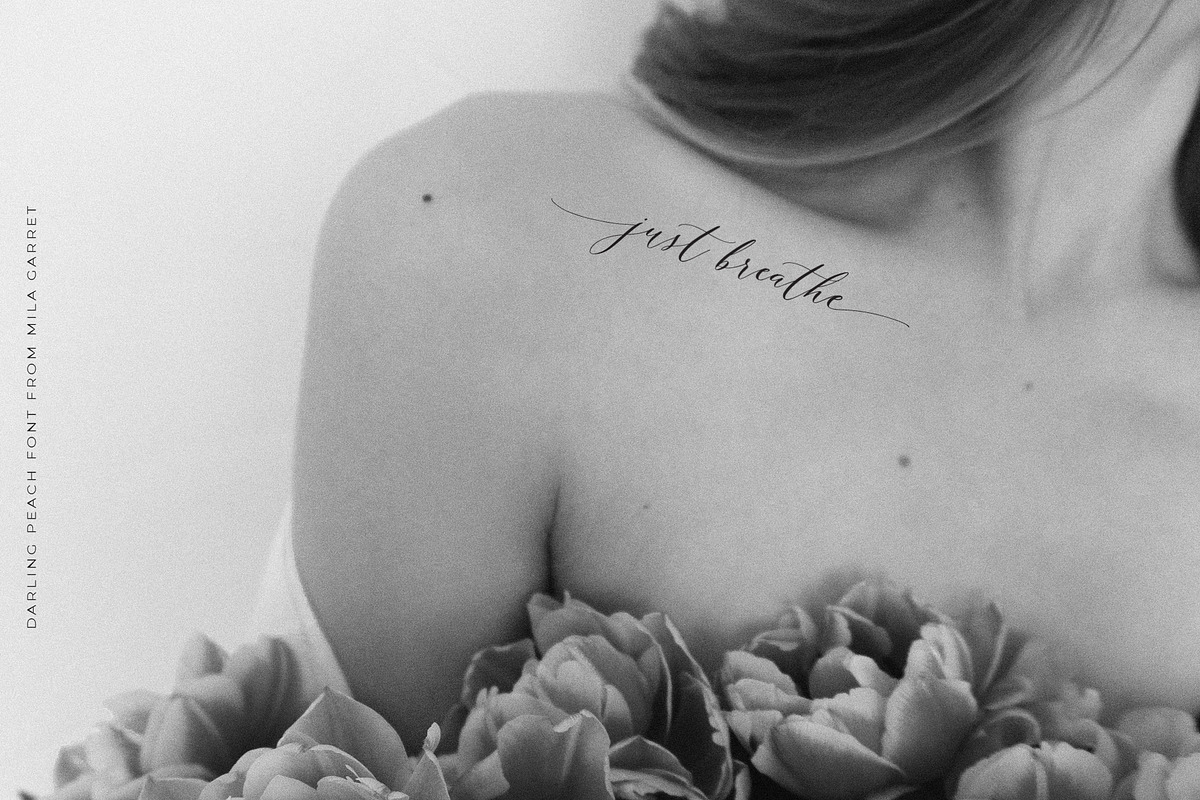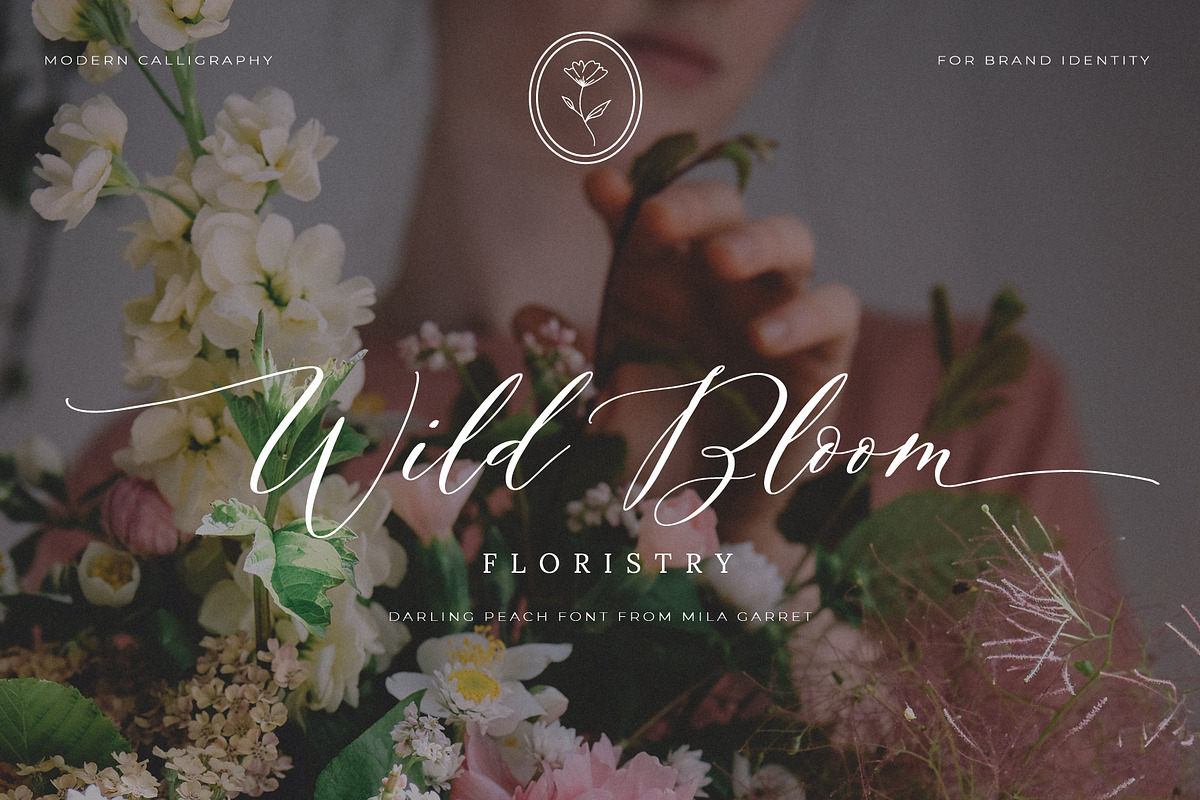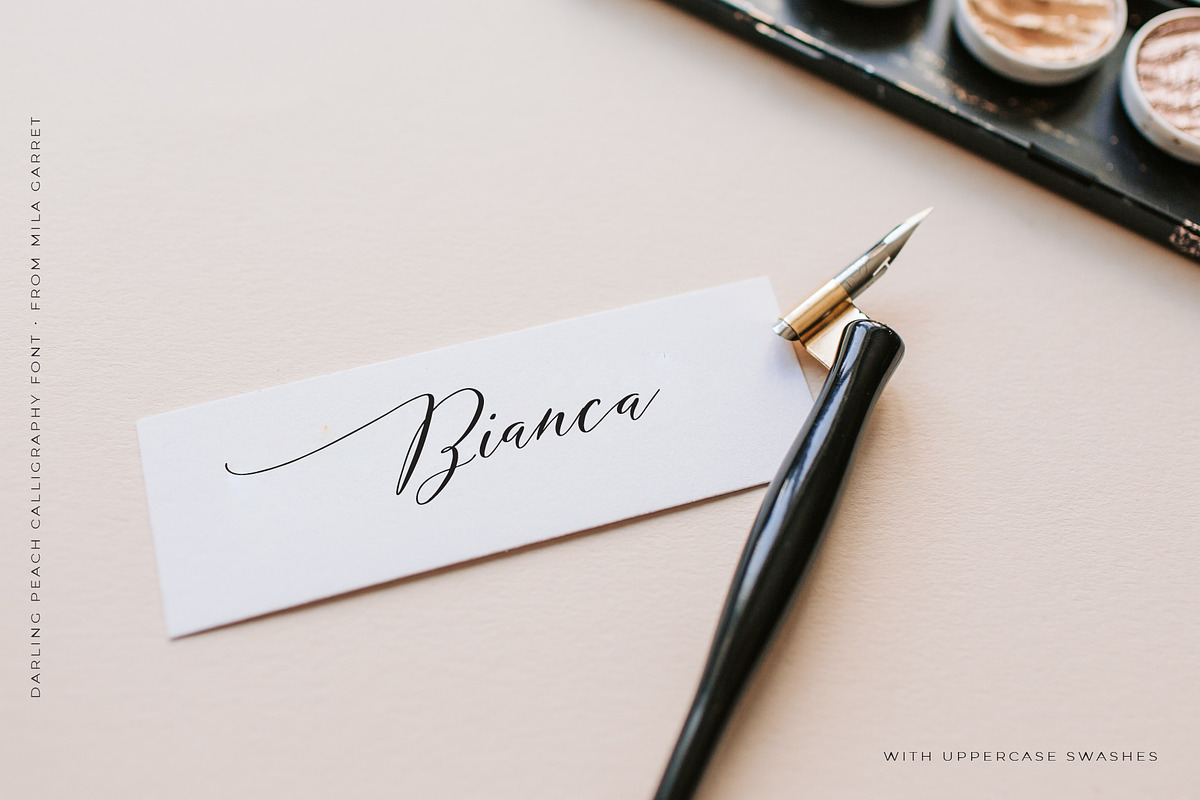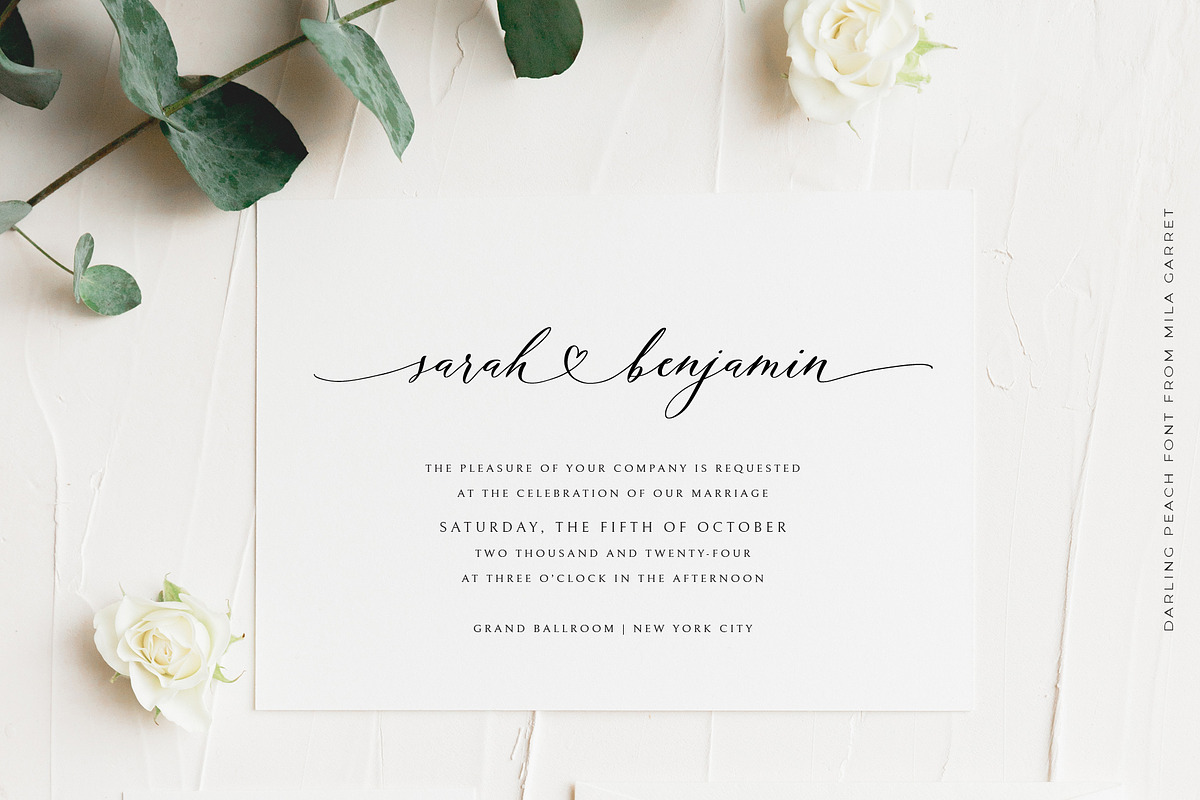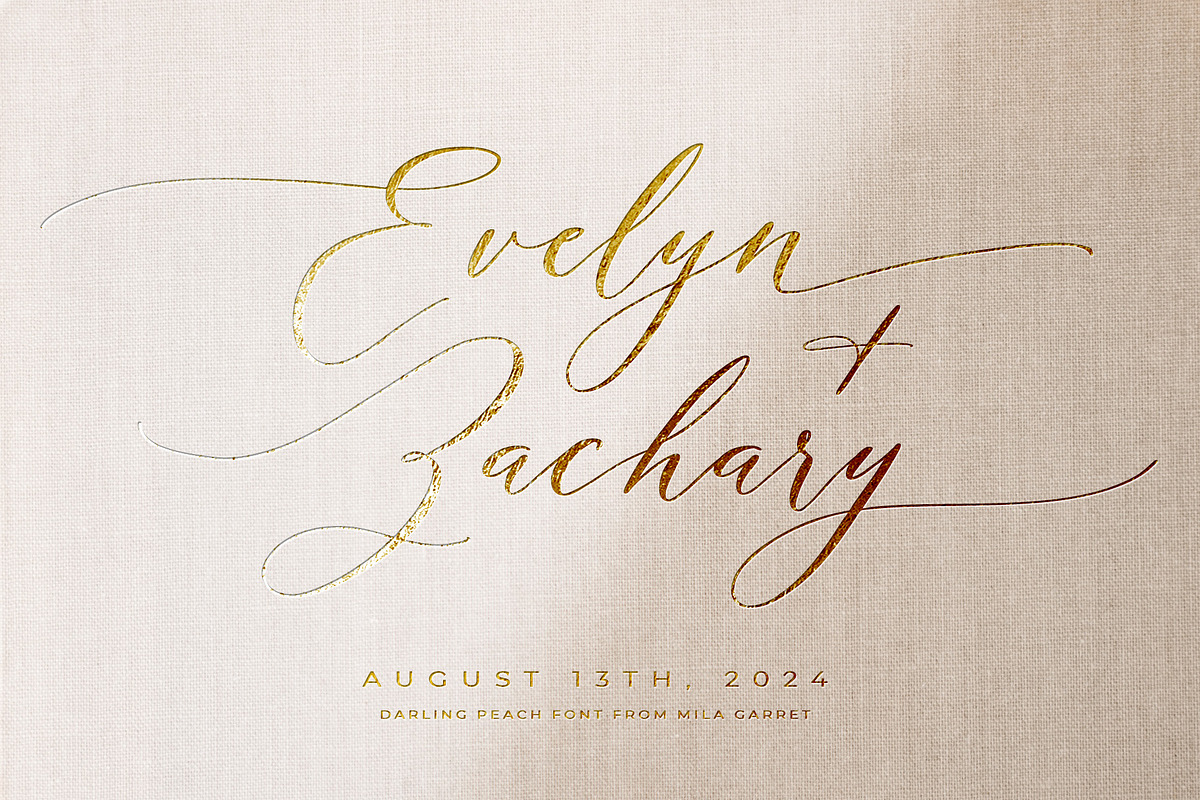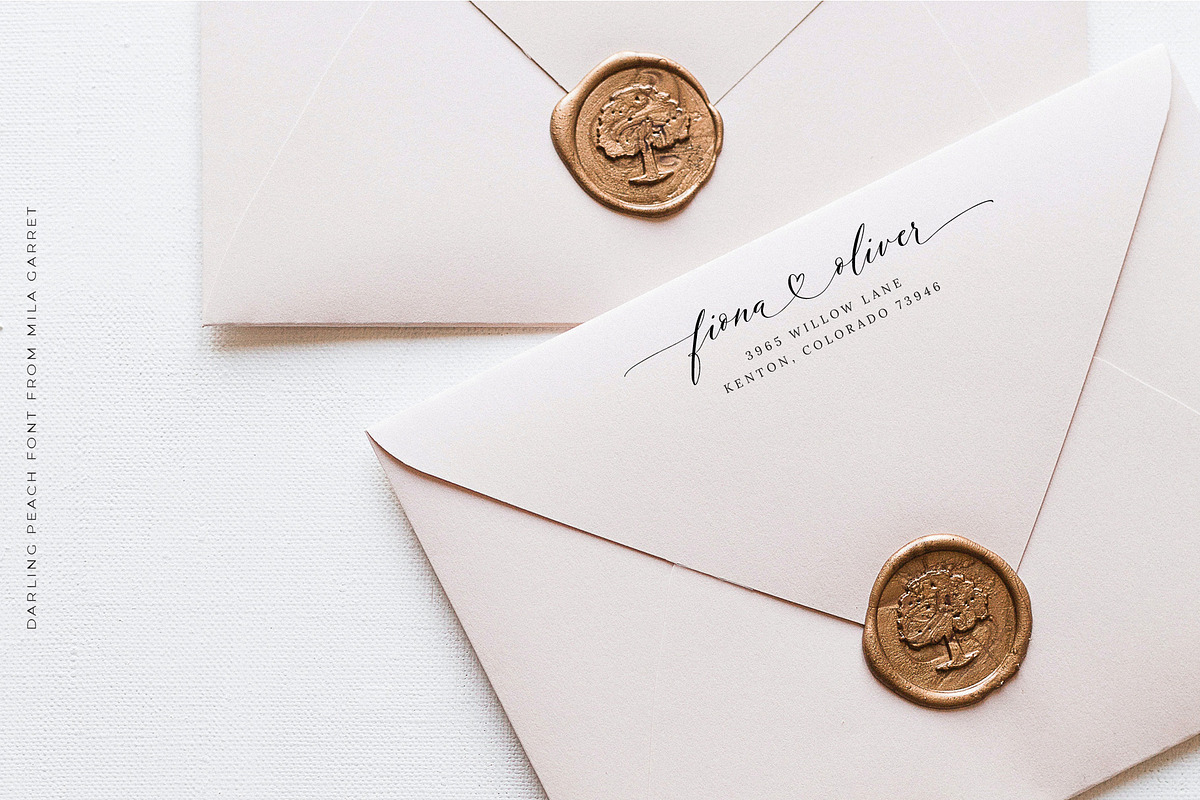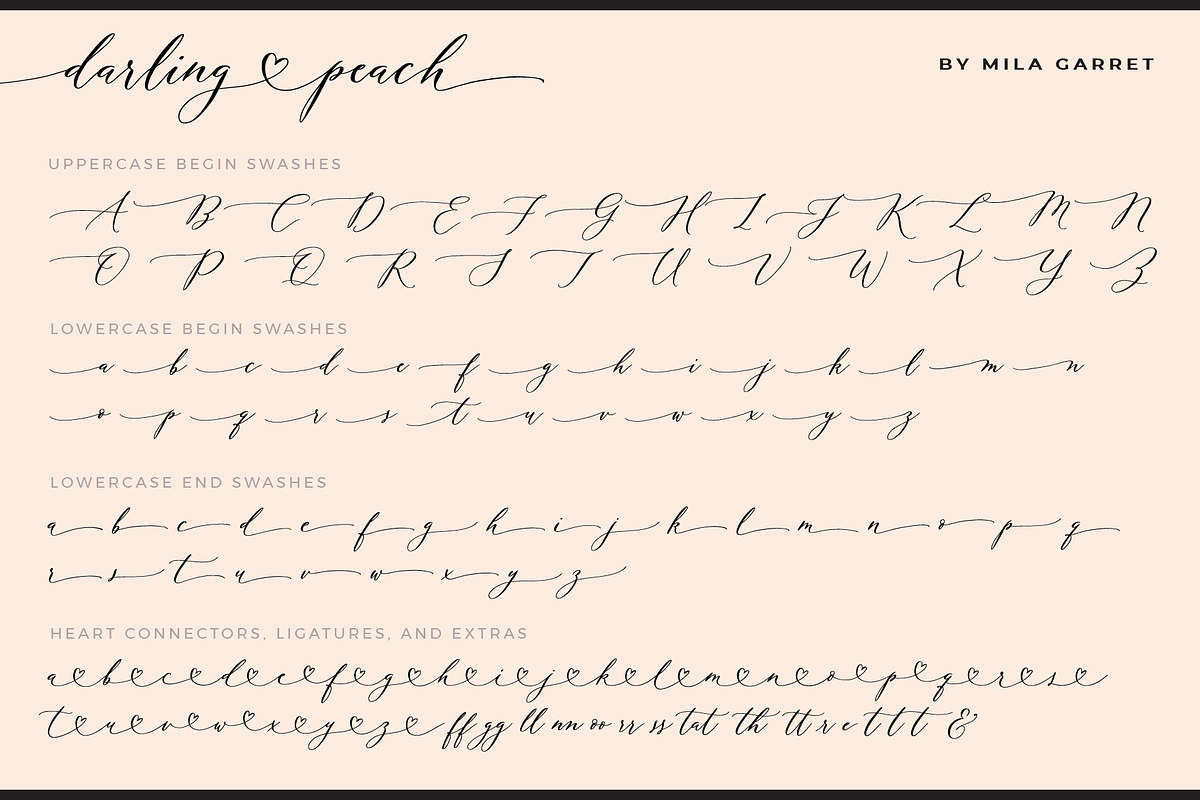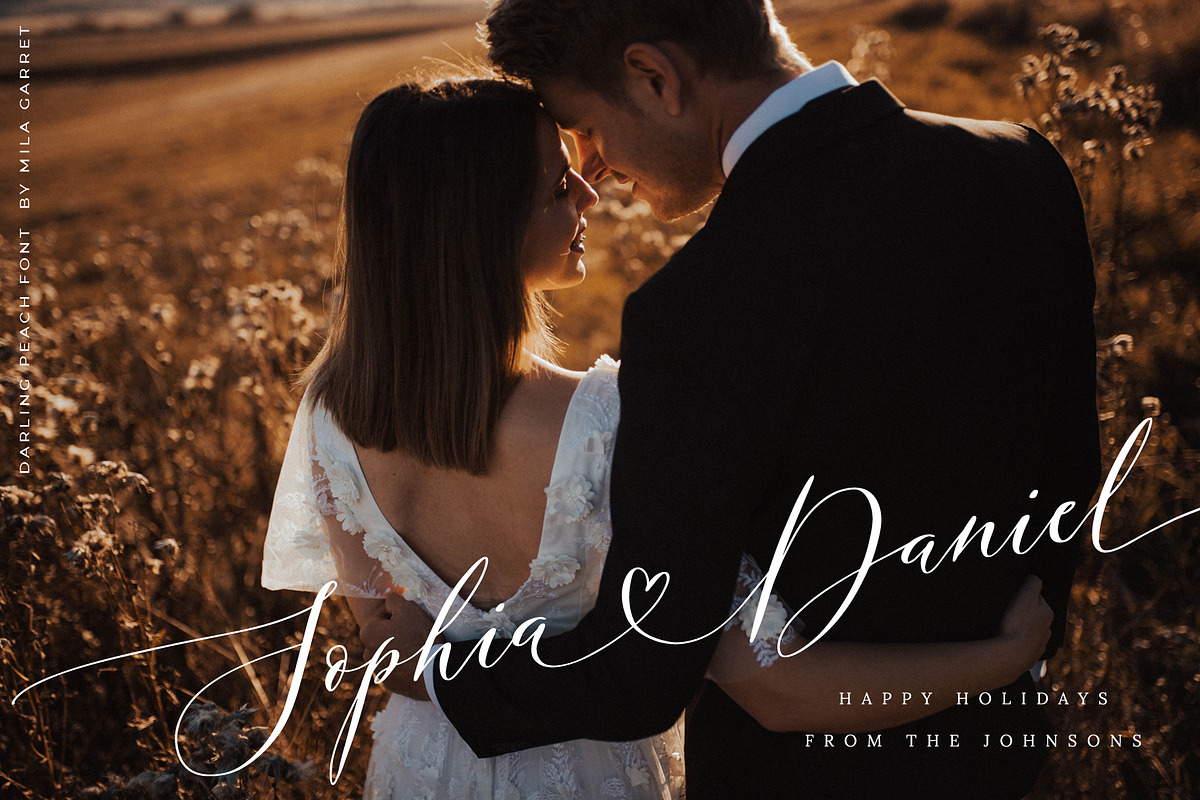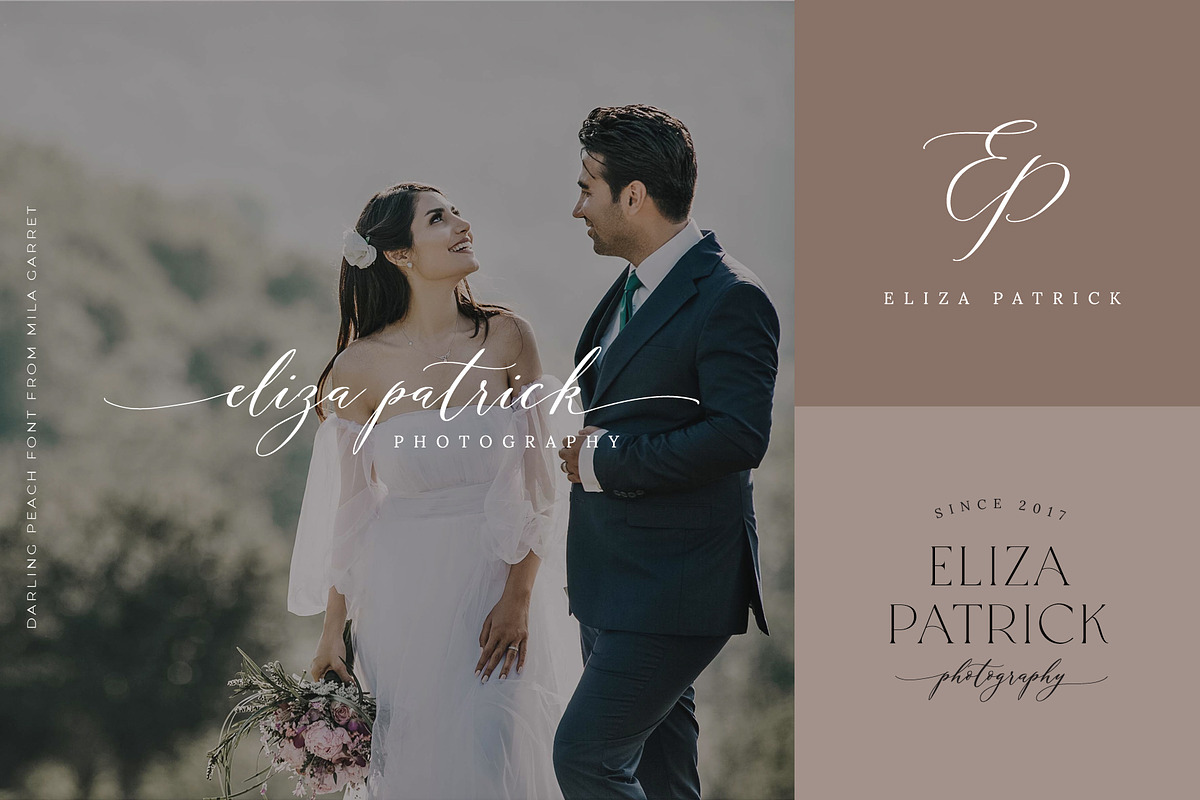
Darling Peach Wedding Heart Script
Darling Peach is a modern calligraphy script perfect for wedding invitations, calligraphy logos for branding, elegant websites, personalizing gifts, social media posts, and anything else your heart desires!
Included with Darling Peach is a full set of beginning and ending lowercase swashes, uppercase alternates, and heart connector swashes to create a realistic handwritten calligraphy look for your designs.
Darling Peach Font Features
- Full Set of standard alphabet and punctuation
- Extra set of beginning swashed lowercase
- Extra set of ending swashed lowercase
- Extra set of beginning swashed uppercase
- Extra set of uppercase alts
- Set of lowercase heart connectors (connects to lowercase, and uppercase alts)
- Extra stylistic alternates and ligatures